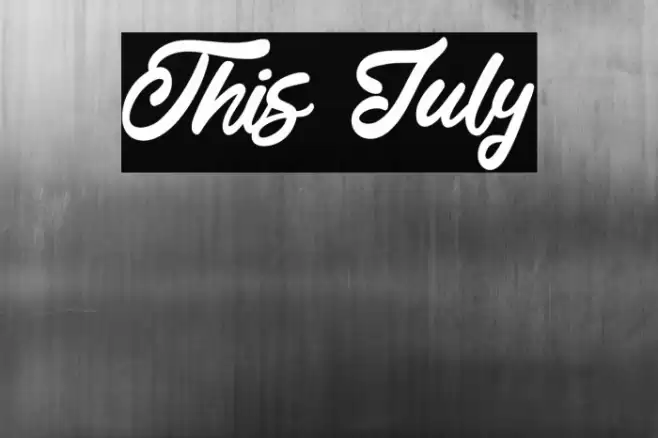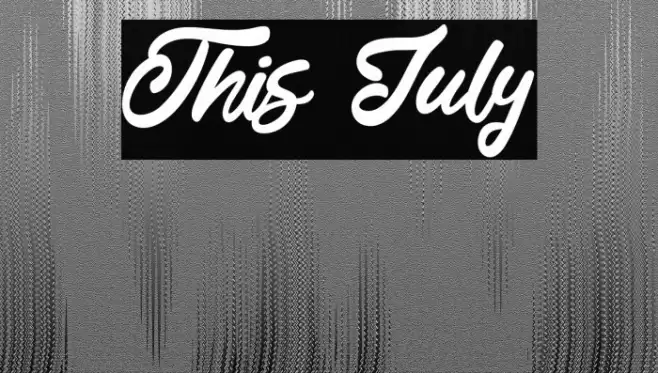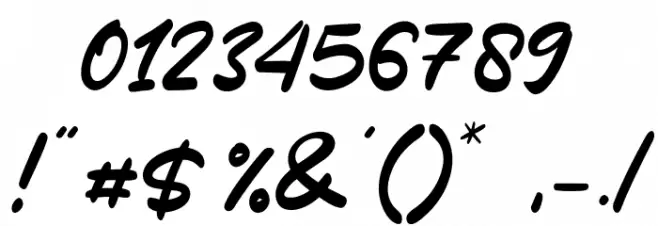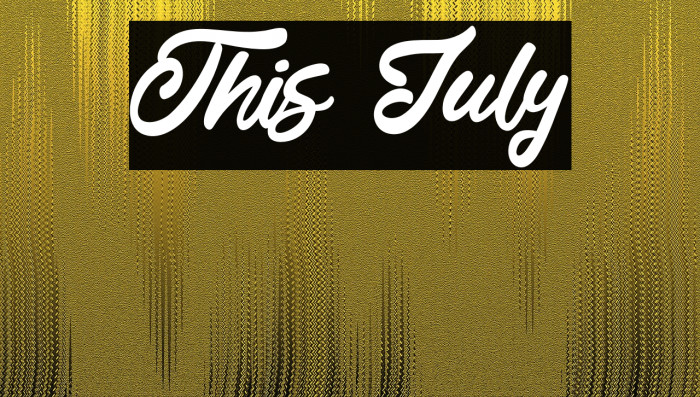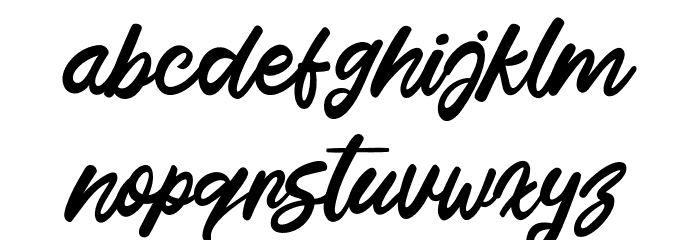
This July Font
This July Description
This elegant script font features a flowing, cursive style with smooth, rounded edges and a consistent stroke width. The uppercase letters are ornate and slightly larger than the lowercase, which maintain a harmonious balance with their more subdued curves. The numerals and special characters are designed to complement the letters, maintaining the same fluidity and style. This font exudes a sense of sophistication and charm, making it ideal for projects that require a personal touch. Its legibility is enhanced by the moderate spacing between characters, ensuring clarity while retaining its decorative appeal.
A flowing, cursive script font with elegant, rounded edges and consistent stroke width from Uncategorized fonts.
- Proposed Projects: Ideal for wedding invitations, greeting cards, branding, and elegant packaging designs.
- Overall Style: Elegant, Decorative
- Use Case: Headlines, Invitations, Logos